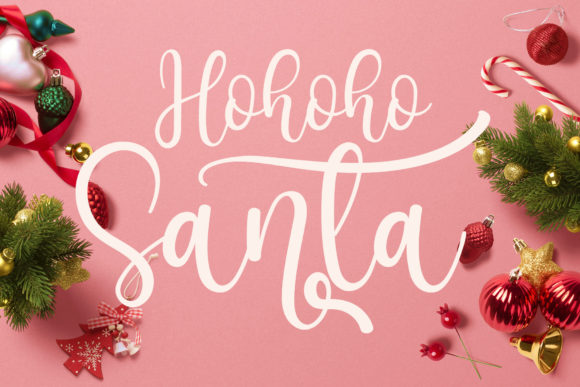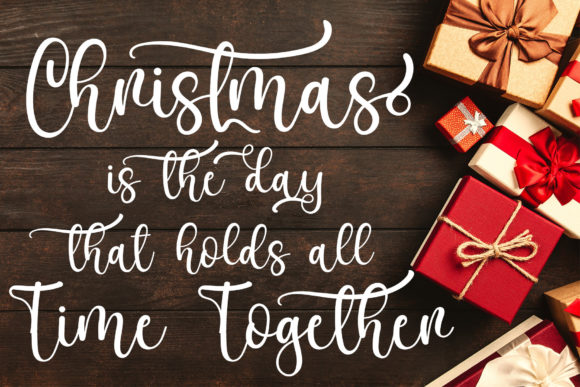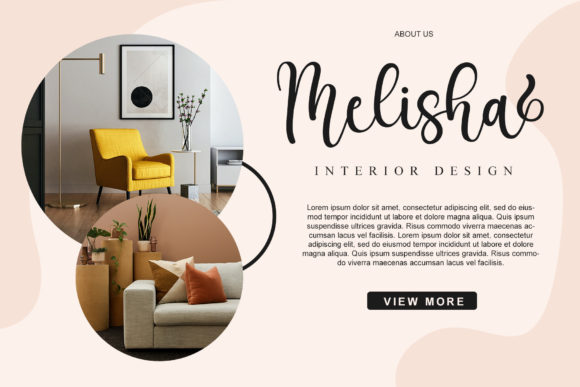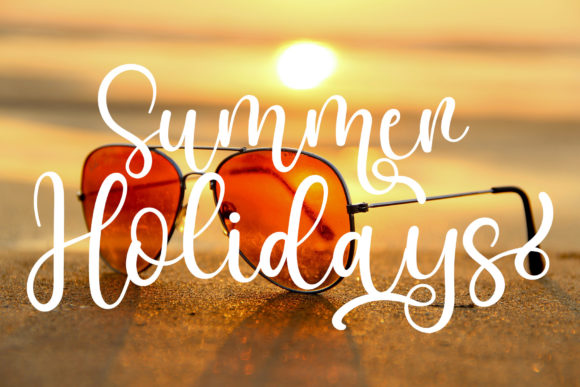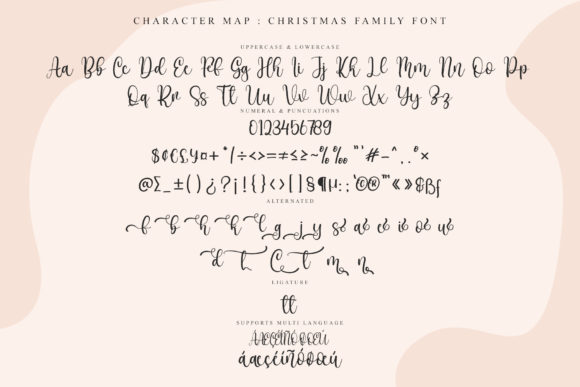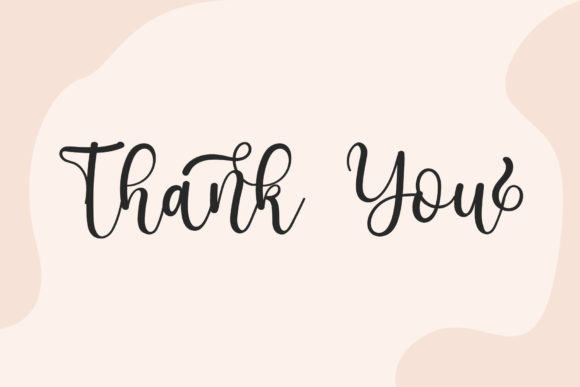
Introducing Christmas Family Font: The Ultimate Festive Typeface for Your Holiday Designs
Are you looking for a font that captures the essence of the holiday season? Do you want to add a touch of luxury and festivity to your design projects? Look no further than Christmas Family Font, a stunning calligraphy typeface that’s sure to make your designs sparkle. In this article, we’ll take a closer look at what makes Christmas Family Font so special and how you can use it to elevate your holiday designs.
What is Christmas Family Font?
Christmas Family Font is a beautiful, festive calligraphy typeface that’s perfect for adding a touch of holiday cheer to any design project. With its unique, dancing characters that move along the baseline, this font is sure to add a touch of whimsy and fun to your designs. Whether you’re creating holiday cards, gift tags, or social media graphics, Christmas Family Font is the perfect choice.
Key Features of Christmas Family Font
- Festive and Sweet Design: Christmas Family Font features a festive and sweet design that’s perfect for the holiday season. Its unique characters are sure to add a touch of holiday cheer to any design project.
- Calligraphy Style: This font features a beautiful calligraphy style that’s perfect for creating elegant and sophisticated designs.
- Dancing Characters: The characters in Christmas Family Font dance along the baseline, adding a touch of whimsy and fun to your designs.
- Luxury Spark: With its elegant design and festive feel, Christmas Family Font is sure to add a luxury spark to any design project.
How to Use Christmas Family Font in Your Designs
Christmas Family Font is a versatile typeface that can be used in a variety of design projects, including:
- Holiday Cards and Invitations: Add a touch of festivity to your holiday cards and invitations with Christmas Family Font.
- Gift Tags and Labels: Use Christmas Family Font to create beautiful gift tags and labels that are sure to impress.
- Social Media Graphics: Add a touch of holiday cheer to your social media graphics with Christmas Family Font.
- Web and Blog Headers: Use Christmas Family Font to create beautiful web and blog headers that capture the essence of the holiday season.
Tips for Getting the Most Out of Christmas Family Font
Here are a few tips for getting the most out of Christmas Family Font:
- Experiment with Different Sizes and Colors: Don’t be afraid to experiment with different sizes and colors to find the perfect look for your design.
- Pair with Other Fonts: Christmas Family Font pairs well with other fonts, so don’t be afraid to try pairing it with a sans-serif font for a fun and modern look.
- Use on Dark Backgrounds: Christmas Family Font looks great on dark backgrounds, so don’t be afraid to try using it on a dark or colored background.